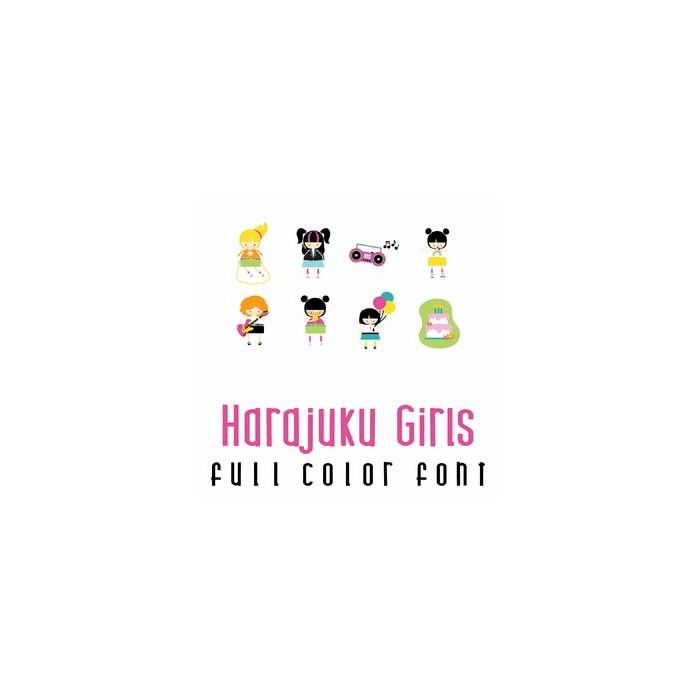
This adorable full-color doodlebat font features 26 adorable Harajuku style girls and items. Perfect for cards, crafts, gifts, decor, scrapbook pages, planner stickers, and more!